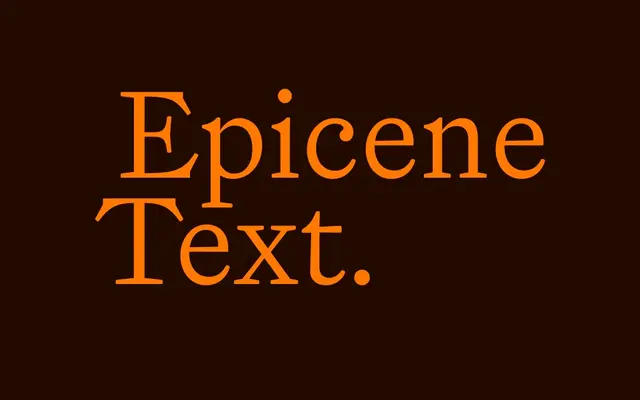
Epicene Text
Klim Type Foundry · Kris Sowersby · 2021
A Baroque text serif drawn from Rosart and Fleischmann, tuned with quieter detail for body copy in books and editorial.
A Baroque text serif by Kris Sowersby and the body-copy companion to Epicene Display, rooted in the same 18th century work of Rosart and Fleischmann. Five roman weights from Light to Black come with matching italics, with details settled down so the page reads steady at book and magazine sizes. Reaches for a literary register where Tiempos Text would feel too neutral and a Garalde revival would feel too quiet.
Klim classifies it as Baroque Old-Style; the text counterpart to Epicene Display, drawing on Rosart and Fleischmann with details tuned to add rigour at small sizes.